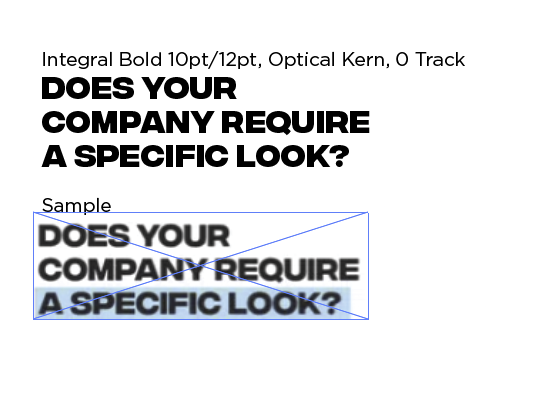
Identify A Font in a Figma Design
This is a headline from a website design in Figma I am building. The designer said he prefers Google fonts since they load fast, however that does not necessarily mean this IS a Google font, just that it may well be. I cannot identify it using standard means.
I just need the name of the typeface and or font.
Indeed they are small (screen-captured during a zoom presentation) yet it has not stayed you from the swift completion of your appointed rounds.
May I ask how you were able to solve the puzzle? The "Q" is most unique yet I was unable to source it. I would challenge anyone to find similar in another family.
So now I realize this is an all-caps typeface, I need to ID the body copy too. Can I get help for the same project for the family name of the attached. I appologize in advance for the small sample. The distinctive lower case "y," ampersand and slightly condensed upper-case (DIN-like) should help ID it.
Body copy is Space Grotesk, Google font.